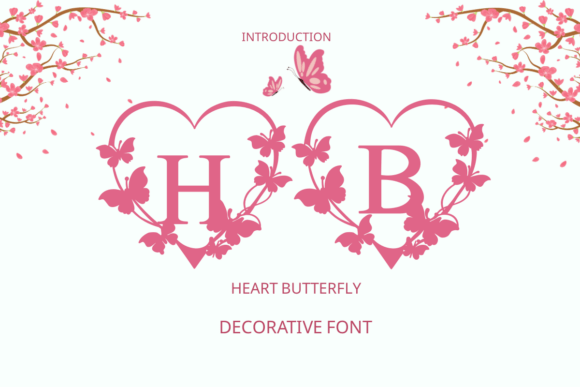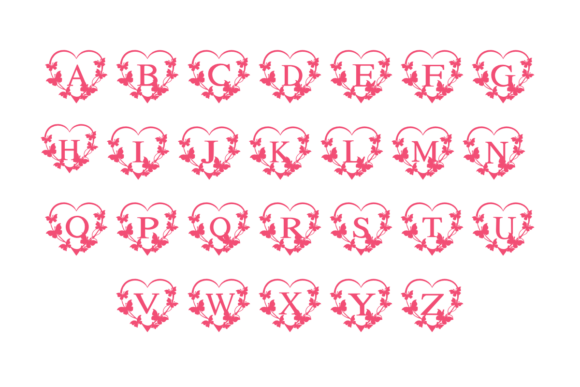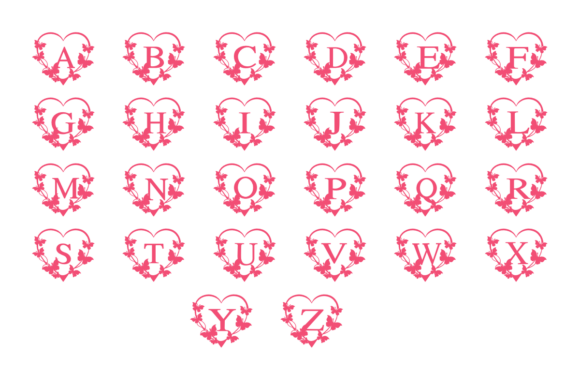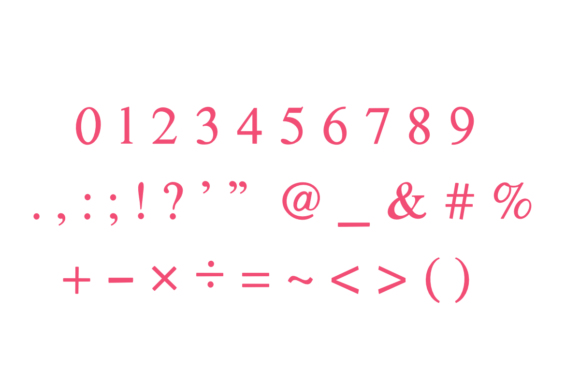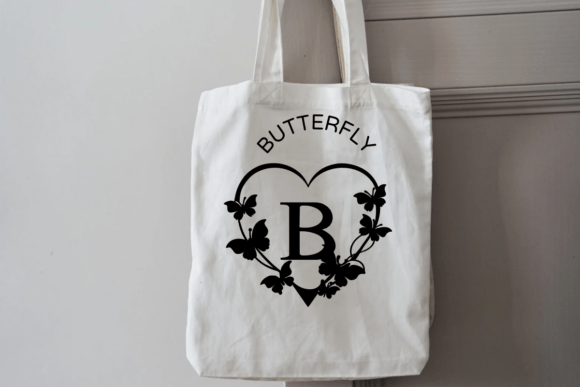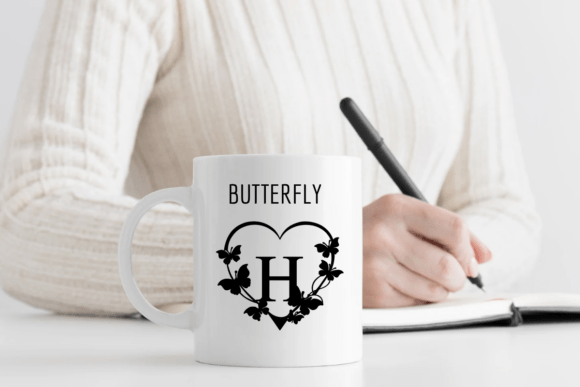
The Perfect Touch: Heart Butterfly Font
Have you ever been working on a project, and just as you’re about to hit publish, you feel like something is missing? A spark of creativity is all you need to elevate your design from ordinary to extraordinary. For designers, the perfect font can make all the difference. That’s where the Heart Butterfly Font comes in – a cool and unique decorative font that adds a touch of whimsy to any project.
This charming font is designed to bring a sense of playfulness and romance to your designs. Whether you’re working on a wedding invitation, a children’s book, or a social media campaign, the Heart Butterfly Font is sure to capture the hearts of your audience. Its value lies in its versatility and ability to add a personal touch to any project, making it a must-have for designers looking to stand out from the crowd.
Key Features of Heart Butterfly Font
- Unique Characteristics: The Heart Butterfly Font features a unique blend of whimsical and elegant elements, making it perfect for romantic, whimsical, or inspirational designs.
Review: Heart Butterfly Font
Overall, the Heart Butterfly Font is a sweet and whimsical font that can add a touch of magic to your designs. ✨ The font’s hand-drawn feel and delicate lines make it perfect for creating a sense of wonder and enchantment in your work.
The font’s versatility is another major plus. ✨ It can be used for a wide range of applications, from children’s books to wedding invitations, and even for branding and logos. The font’s soft, romantic feel makes it ideal for designs that require a touch of femininity and elegance.
- ⚠️ Limited character set: The font’s character set is relatively limited, which may make it difficult to use for longer texts or for languages that require a wider range of characters.
- ⚠️ Not ideal for bold or dramatic designs: The font’s delicate lines and soft feel make it less suitable for designs that require a bold or dramatic impact.
In conclusion, the Heart Butterfly Font is a lovely addition to any designer’s toolkit. While it may have some limitations, its unique charm and versatility make it a great choice for designers looking to add a touch of whimsy to their work.
The Heart Butterfly Font is ideal for:
- Valentine’s Day designs and promotions
- Children’s party decorations and materials
- Any design project that requires a whimsical and playful touch